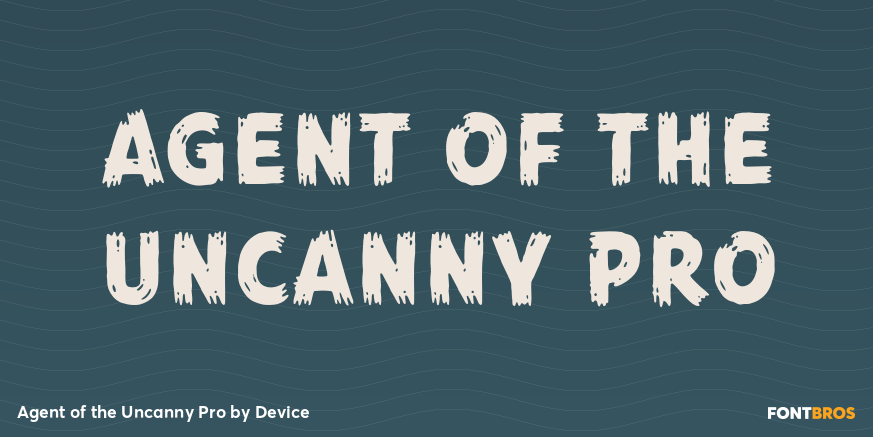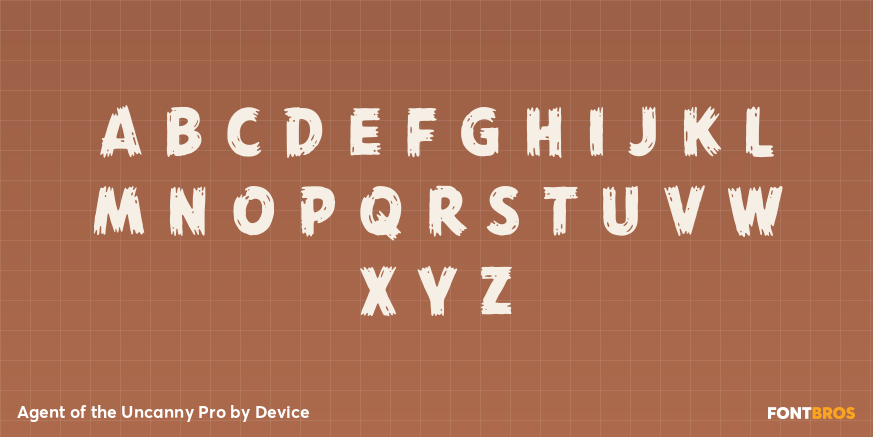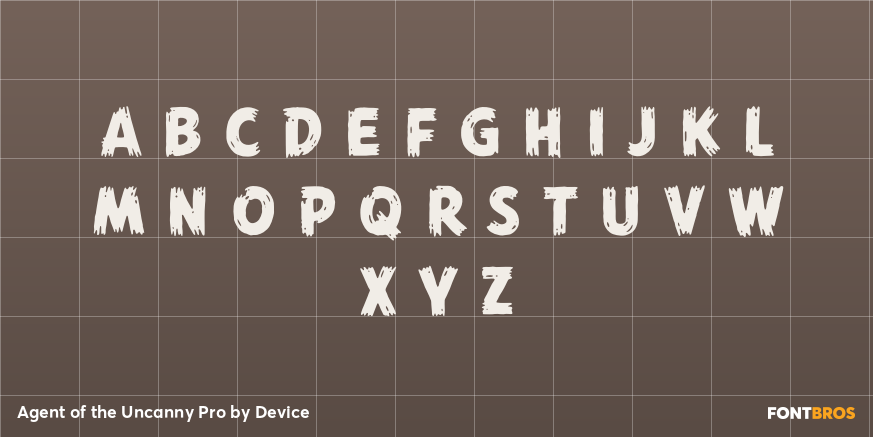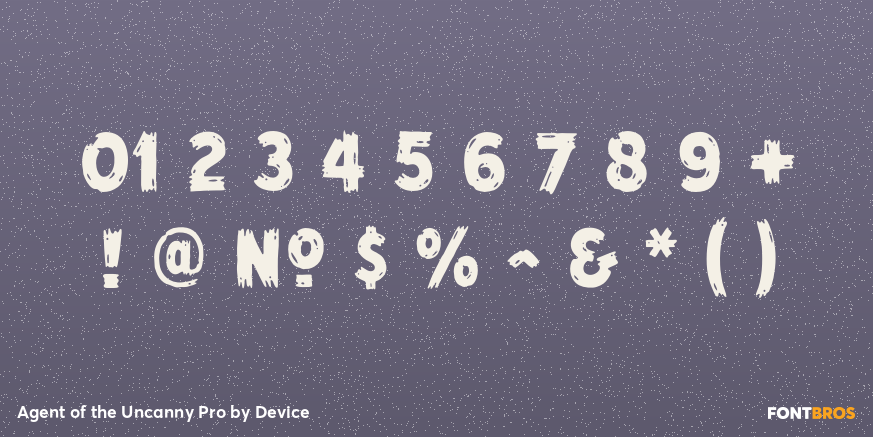
Agent of the Uncanny Pro
Font Family by Device
Agent of the Uncanny Pro is a single-style display font family from Device with a distinctly retro, distressed look. Its Art Deco character and period flavor pull from the 1920s through the 1960s, giving it a worn-in, cinematic presence that feels both stylish and slightly mysterious.
This is the kind of face that shines in attention-grabbing display settings—think posters, packaging, signage, title treatments, and branding that wants a vintage edge rather than a polished finish. The distressed texture keeps it expressive and atmospheric, while the Deco structure gives layouts a strong graphic silhouette.
With 360 glyphs included in its lone Pro style, it offers a focused way to bring retro drama, aged glamour, and special-effect character into design work that needs a little intrigue.